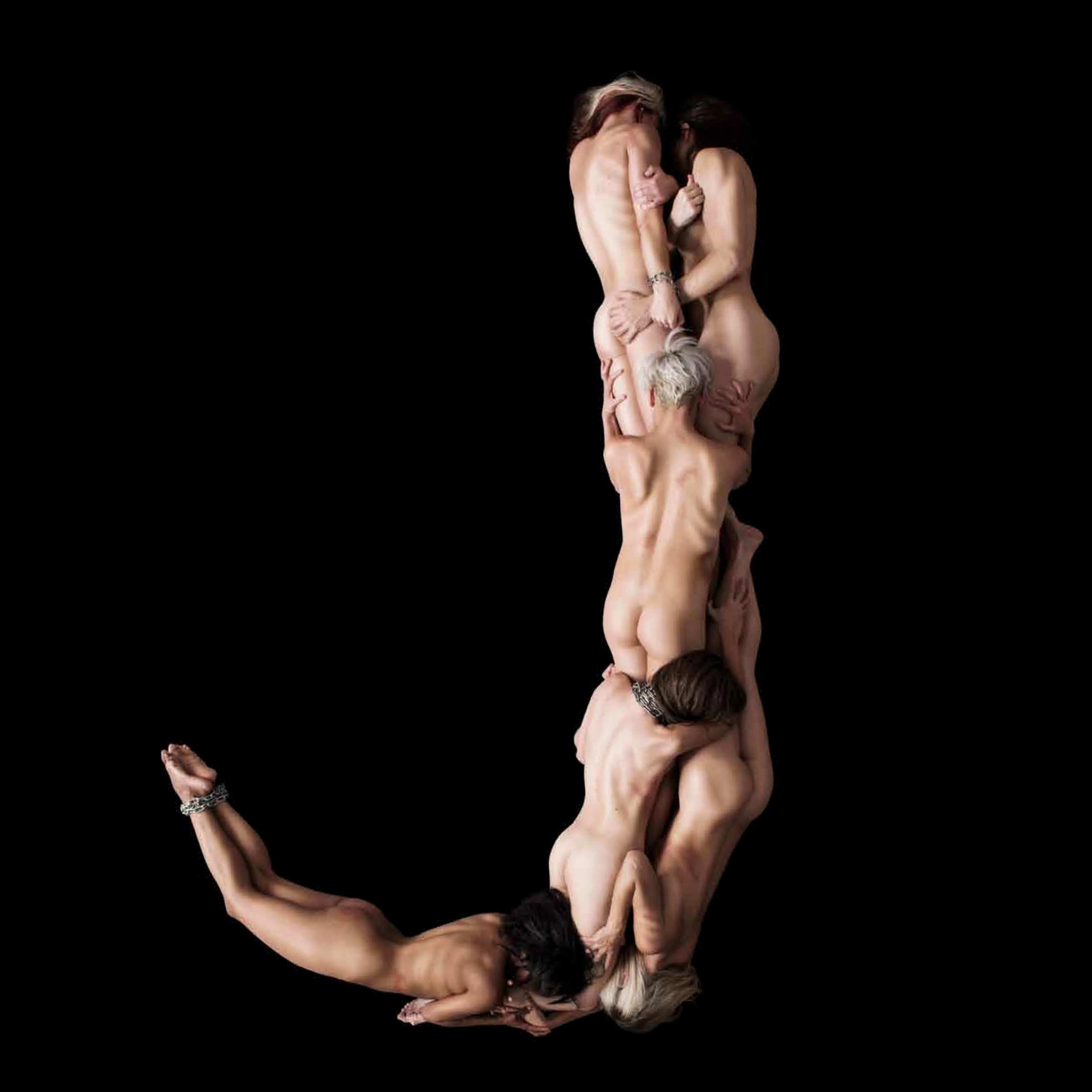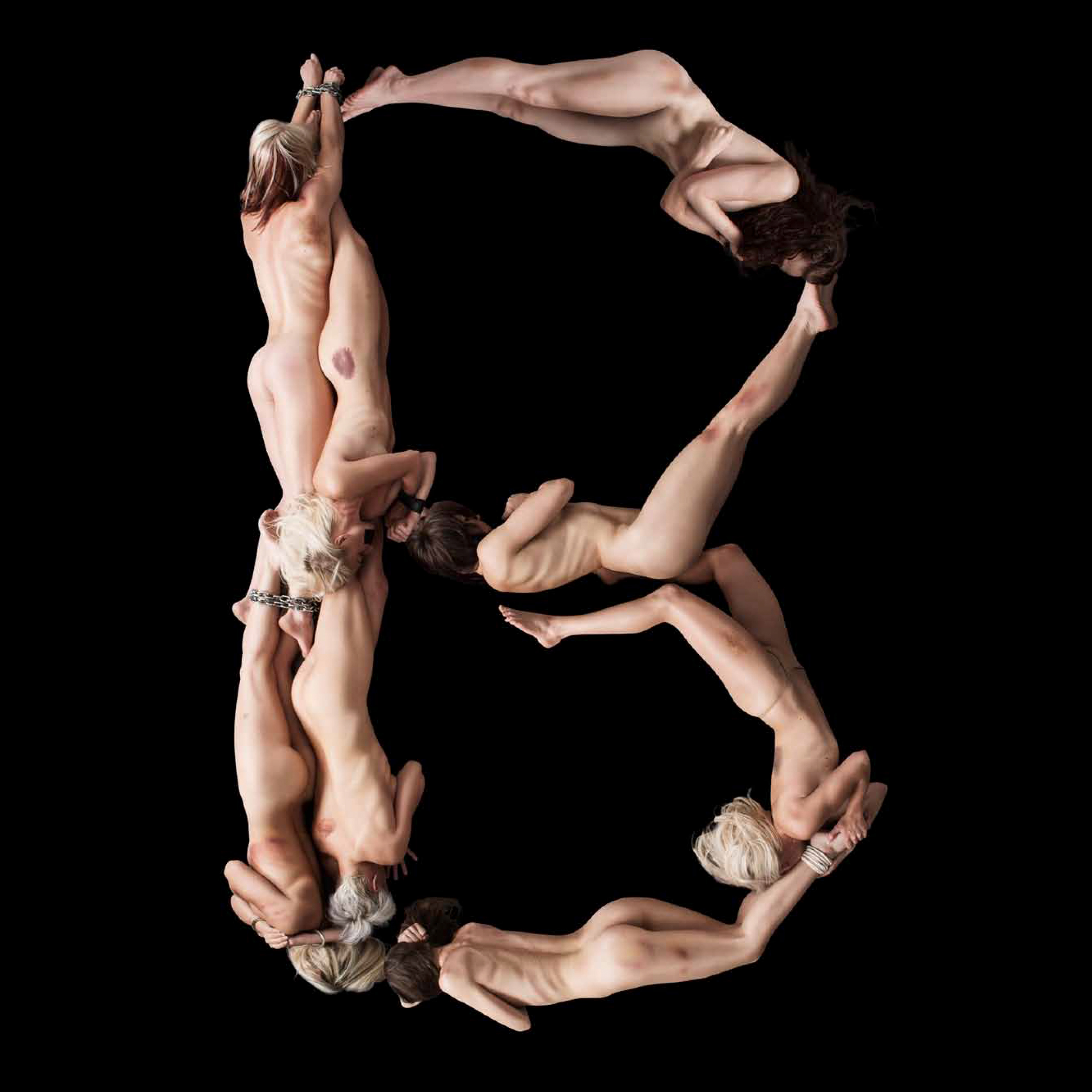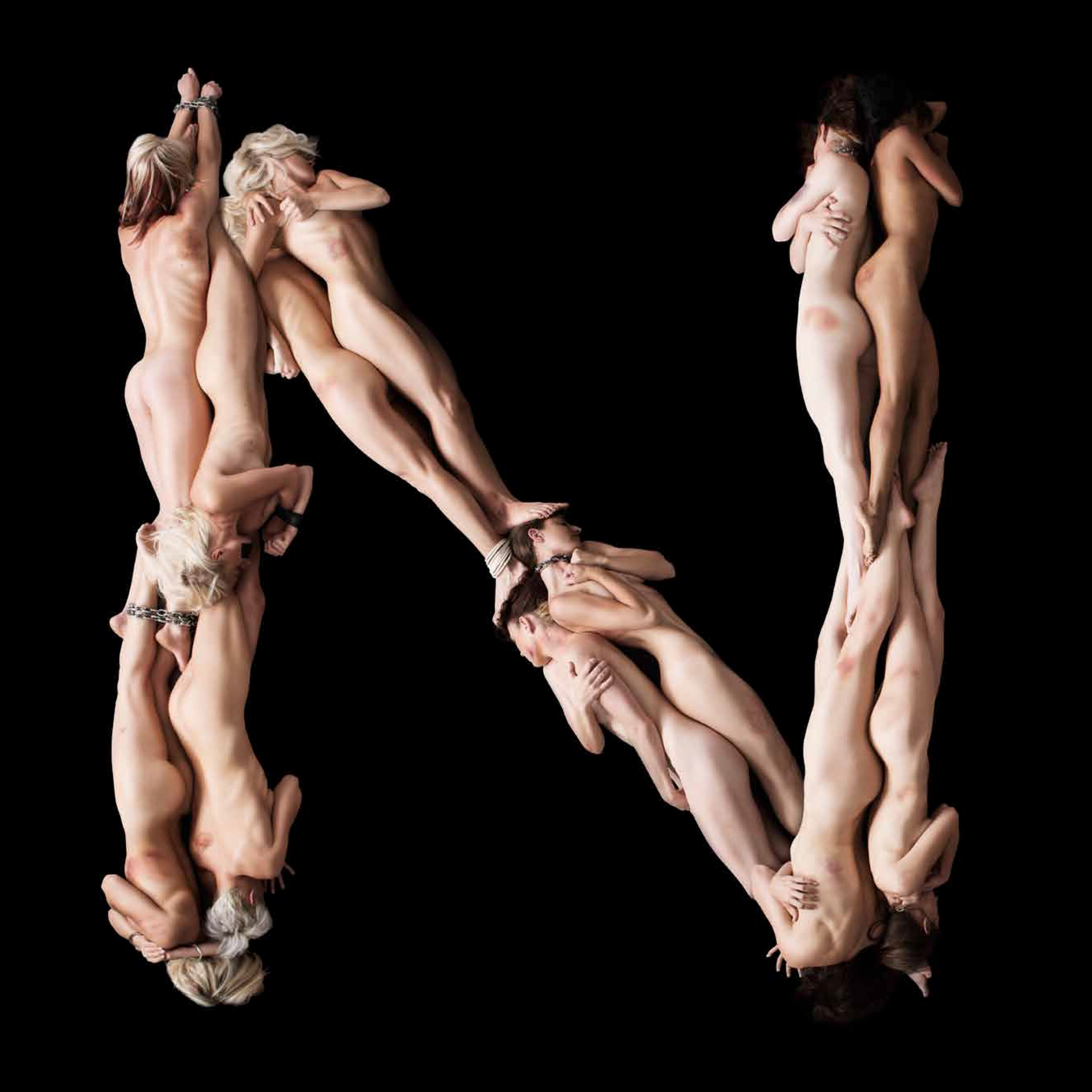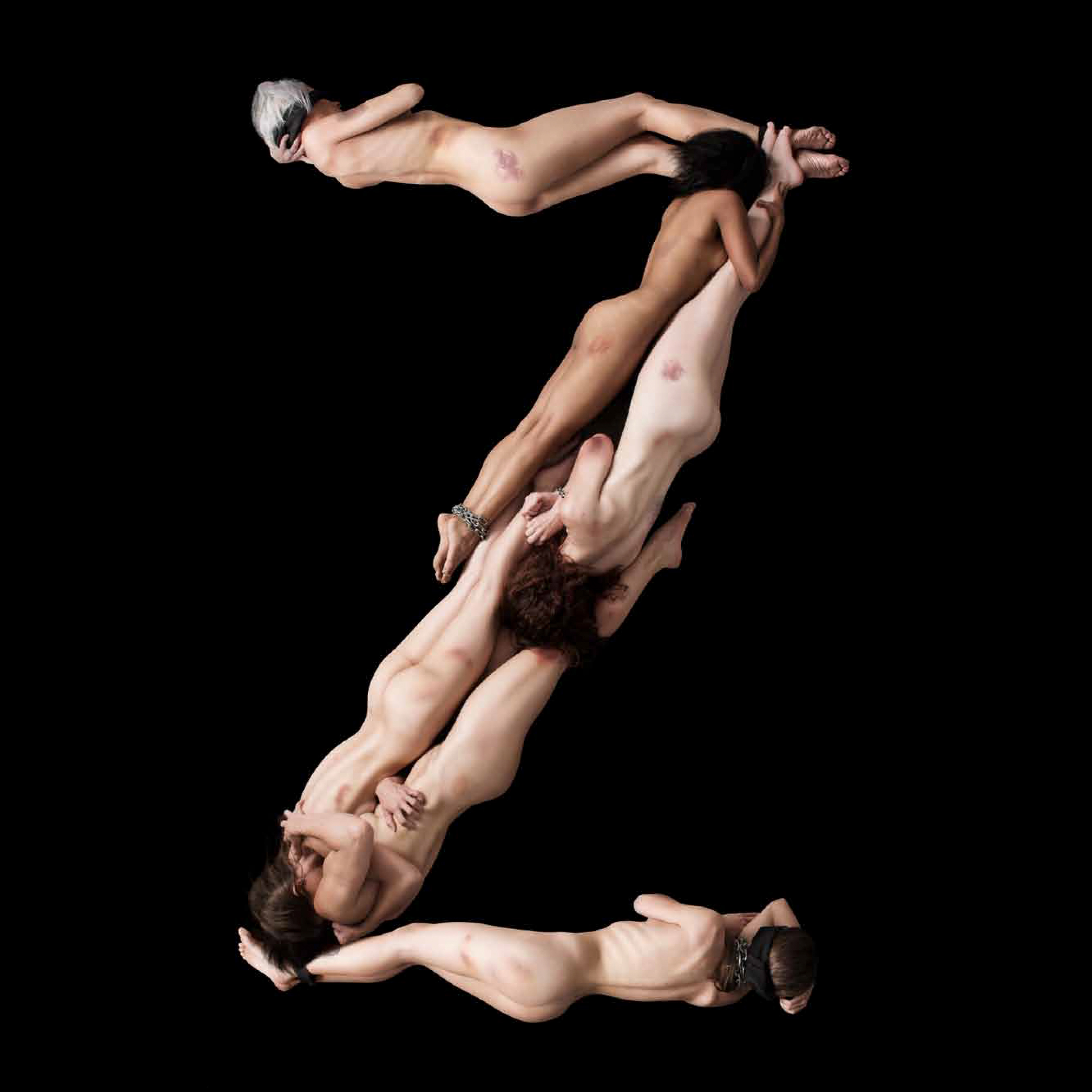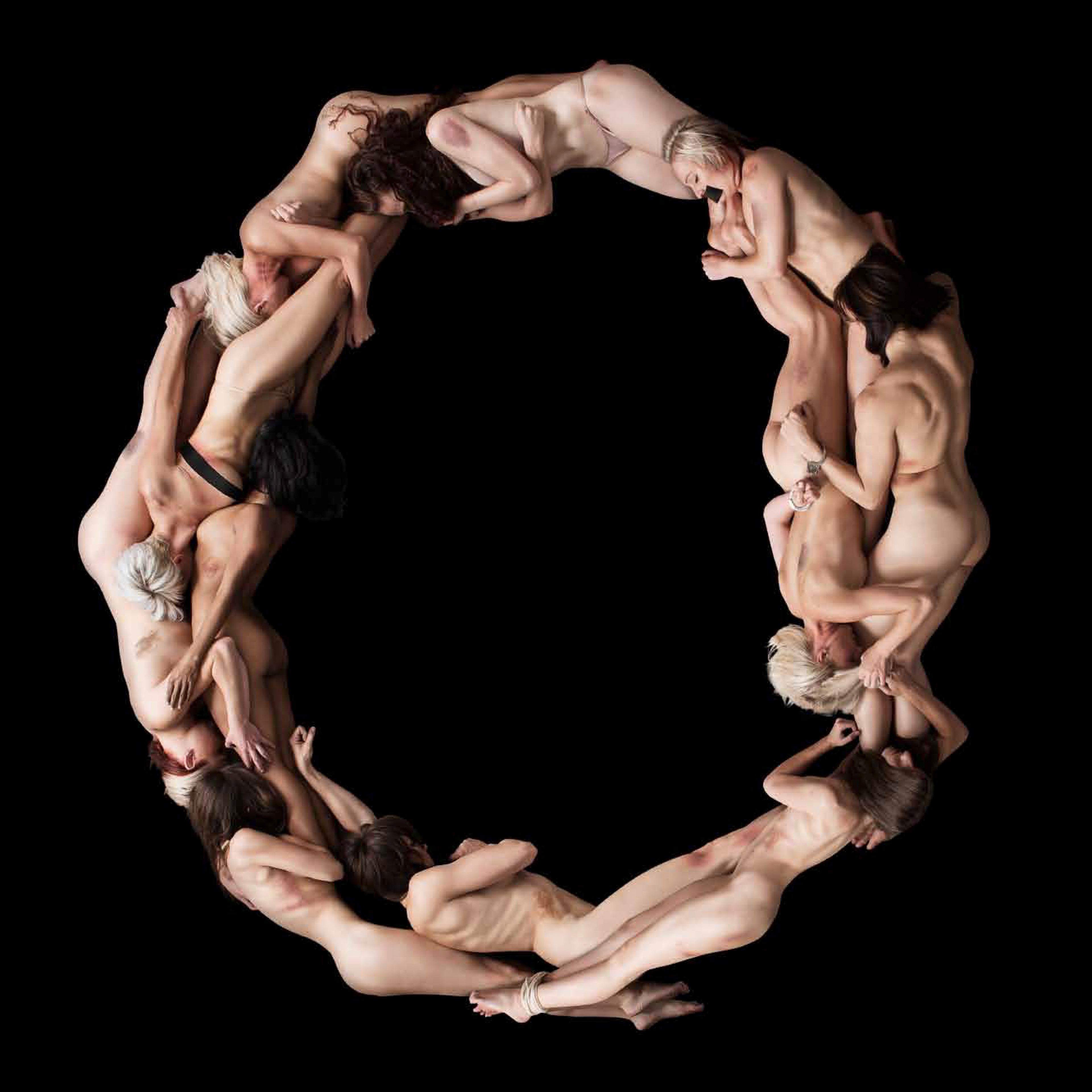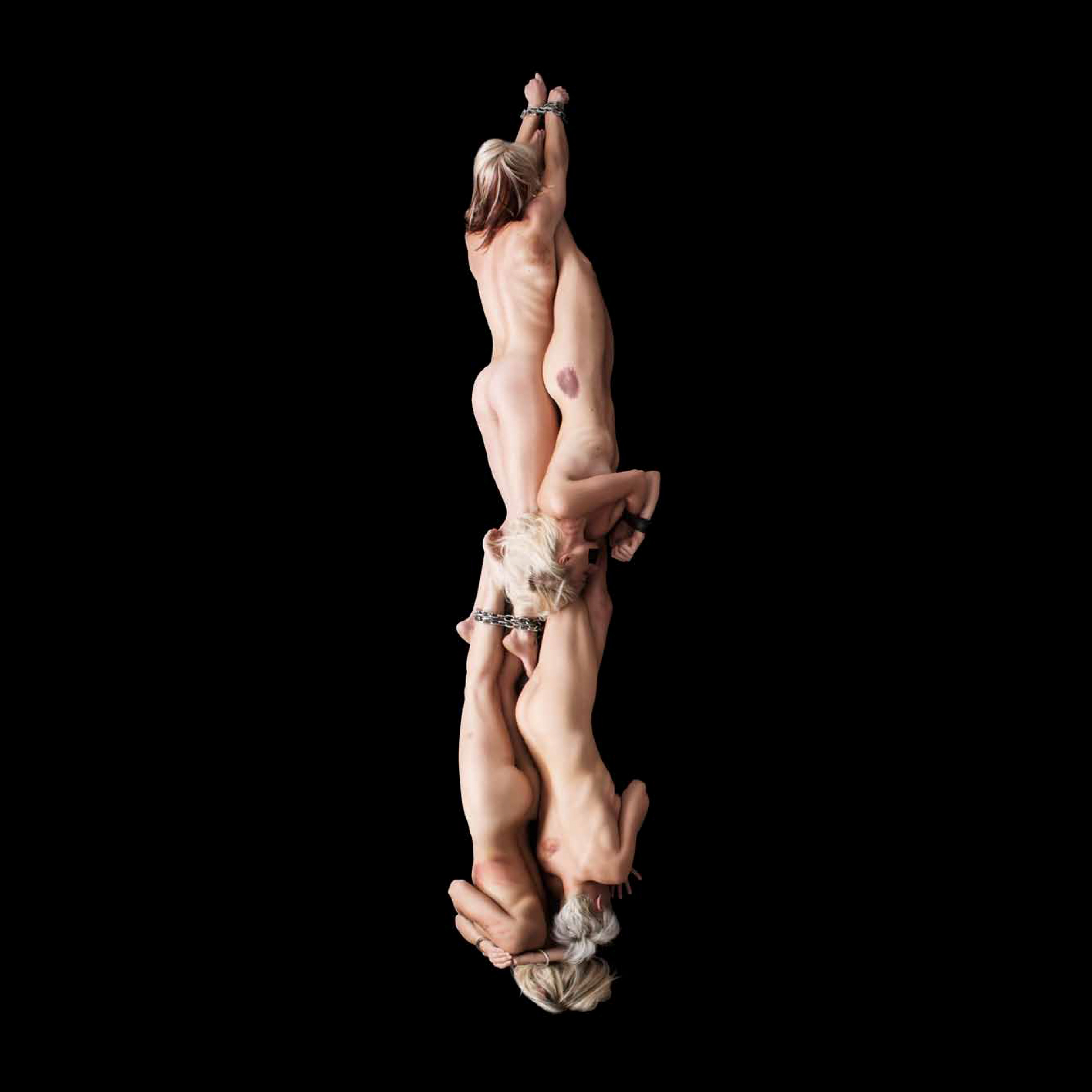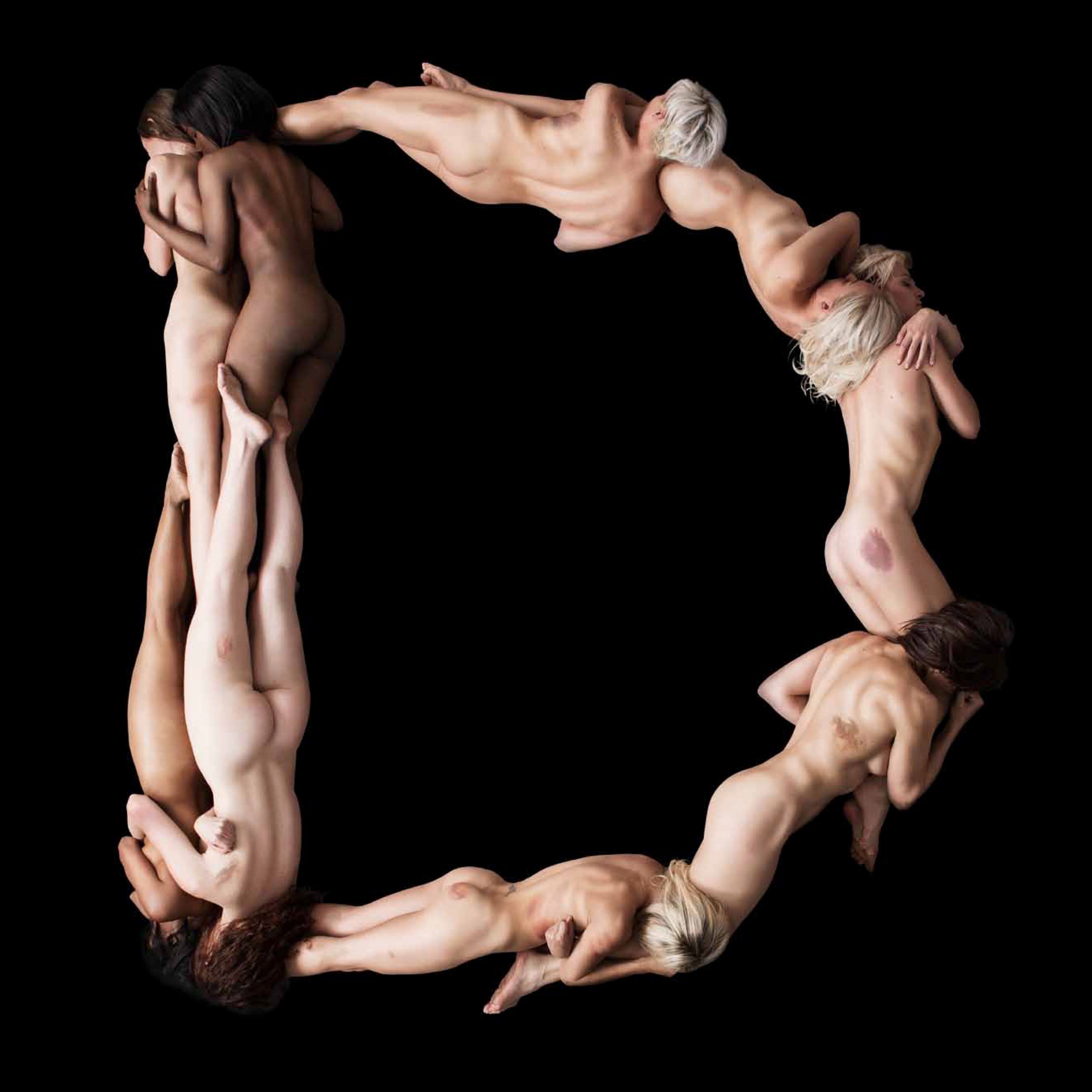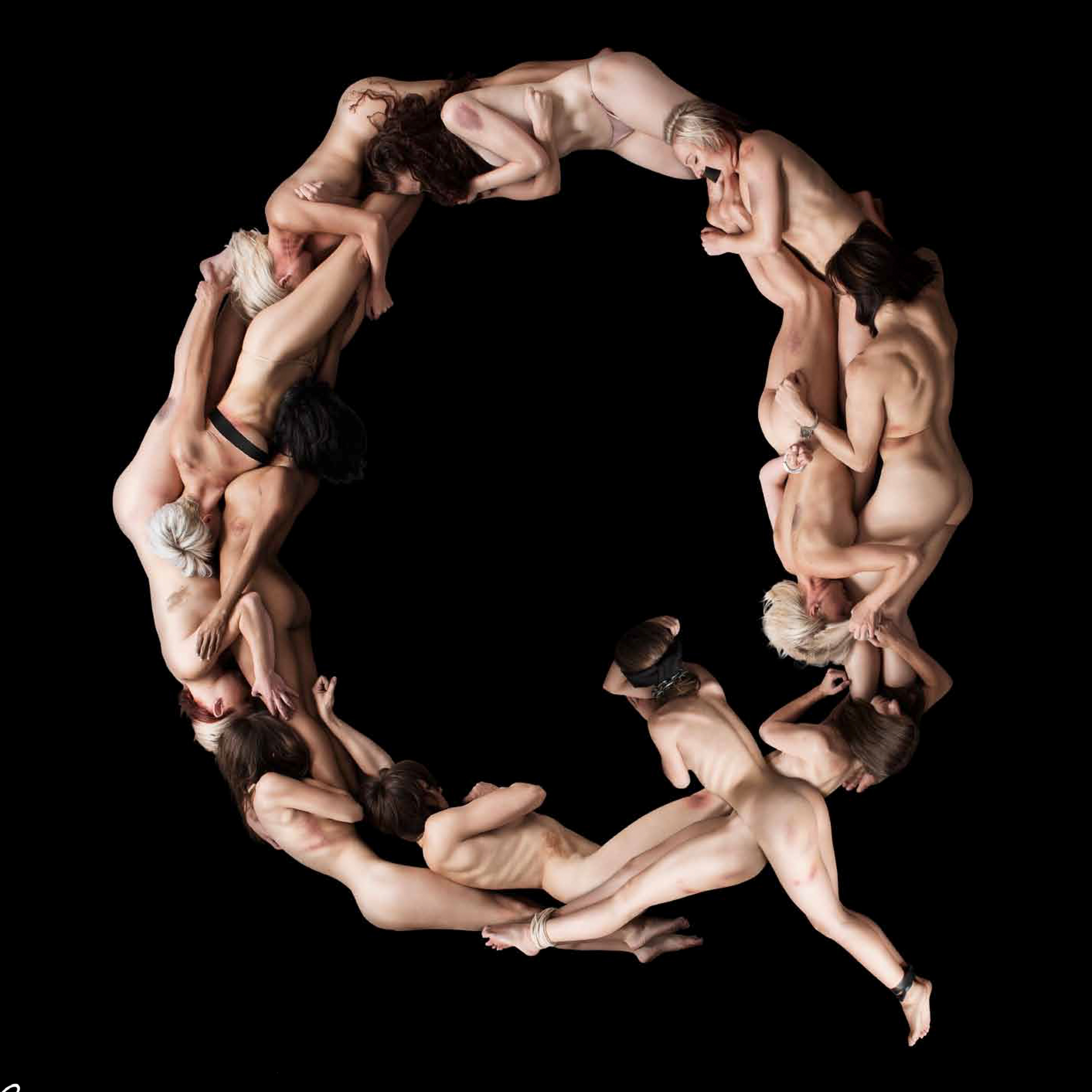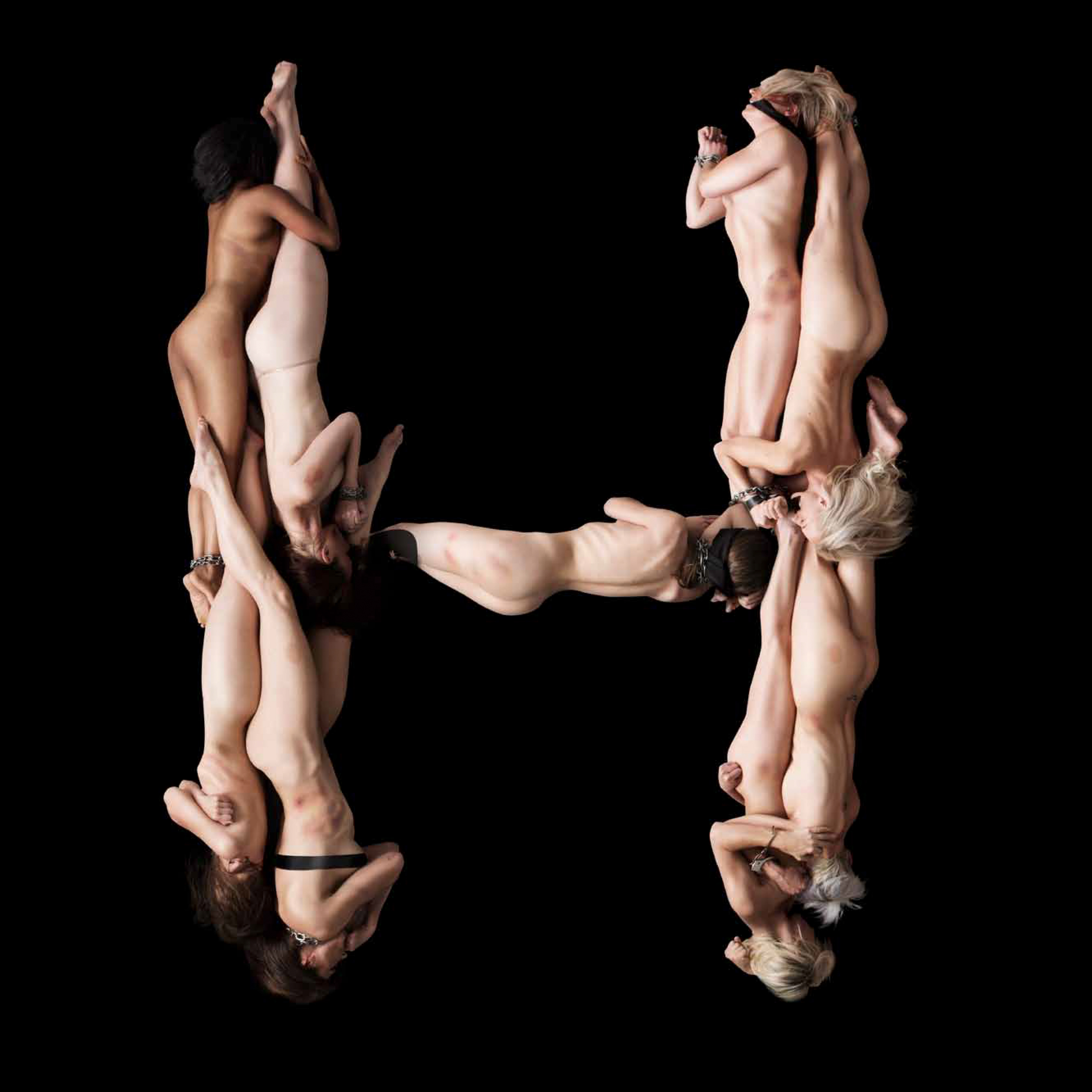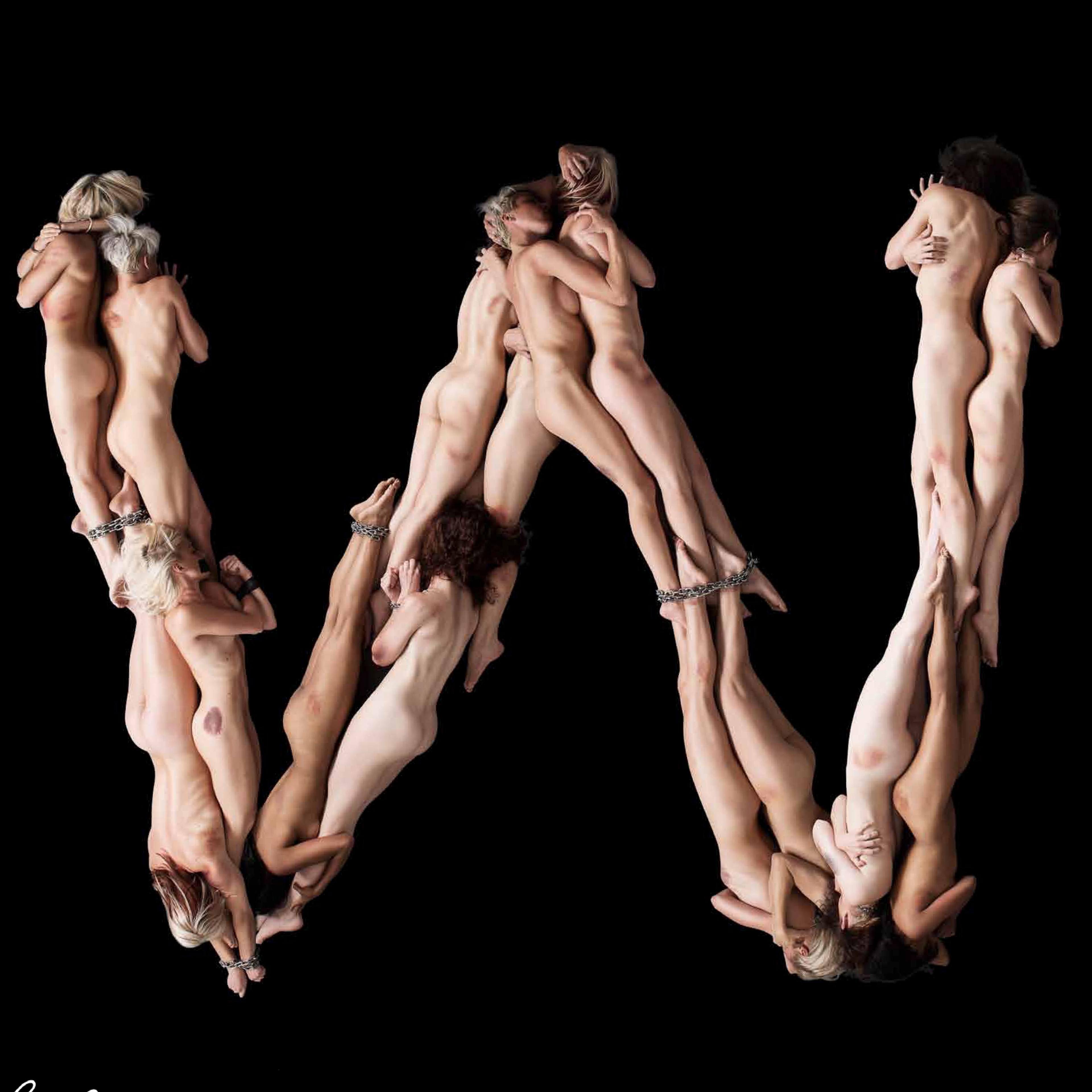
"The Brief:
Sex slavery laws in this country are relatively non-existent. Thousands of woman and children fall prey to sex offenders and often find themselves stuck in a very dark place.
The major issue is that not many people are aware that this even happening.
Our brief was to create awareness around human trafficking and sex slavery through maximum impact on all those that are attending Sexpo 2013, without forcing people to hear our message.
The Idea:
We created a typeface that looks like interesting sex positions. What looked like another porn shop in the mix, had a very serious statement to make. When taking a closer look one can see that the women in the typeface are in fact sex slaves that are in bondage.
They are abused, beaten and bruised. The typeface became a powerful medium in aid of anti-human trafficking and sex slavery, where the public got involved and signed a petition against sex slavery and human trafficking. No offensive nudity could be shown.
The Results:
The response from all those that attended was overwhelming.
During the four day event we managed to get over 4000 names on our petition.
The Salvation Army stand got free news coverage and with the help of social media The Salvation Army cause trended on twitter. The activation gave spark to debates on various  social platforms.   " - Graeme van Jaarsveld